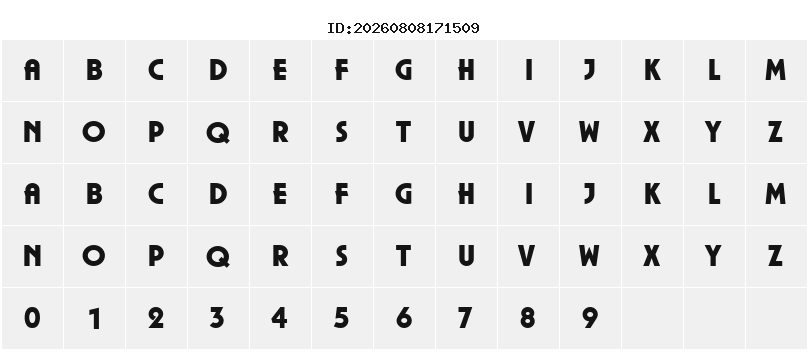
PlazaPUlt Preview
• Font Name: PlazaPUlt
• Font ID: URW:PlazaP-Ultr:1994
• Full Font Name: PlazaPUlt
• PostScript Name: PlazaP-Ultr
• Character Count: 258
About PlazaPUlt.ttf
PlazaPUlt.ttf is a modern, elegant sans-serif font designed for ultimate readability and visual harmony. Perfect for branding, headlines, web design, and print materials.